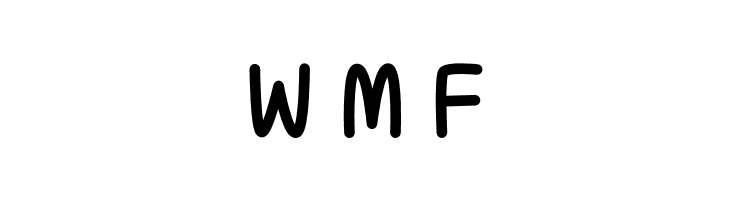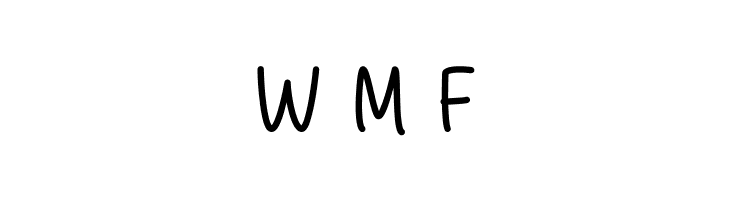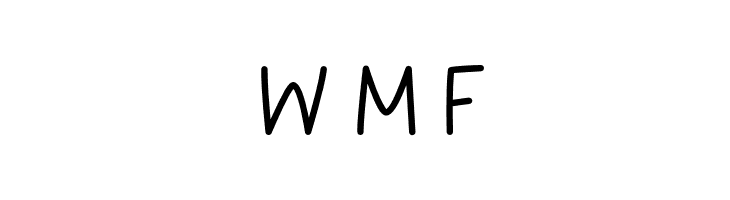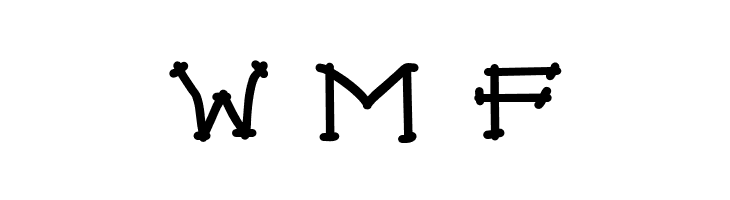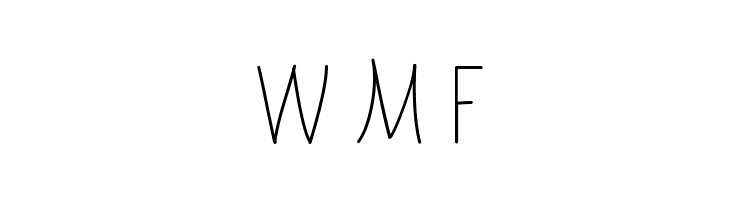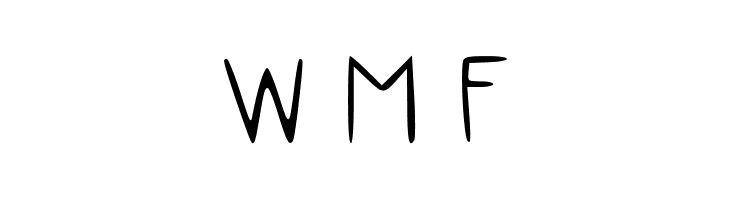
( Martha May Designs )
A playful, hand-drawn font with a whimsical and friendly appearance.
( Matchbook Press )
A whimsical, retro-style font with elongated, thin strokes and circular embellishments.
( MaximDude's Fonts - maximdude.deviantart.com )
A playful, informal handwritten font with uneven letterforms.
( Megami Studios - incstonedesign.com/ )
A hollow, decorative script-like font with bold outlines and artistic flair.
( Mia Hague Illustration - www.miahague.co.uk )
A playful, informal handwritten font with a dynamic and lively feel.
( Misti's Fonts - mistifonts.com/ )
A playful, handwritten font with smooth, rounded edges and a casual style.
( Misti's Fonts - mistifonts.com/ )
A playful, handwritten font with rounded edges and consistent stroke width.
( Misti's Fonts - mistifonts.com/ )
A playful, handwritten font with rounded edges and a casual style.
( Misti's Fonts - mistifonts.com/ )
A playful, handwritten font with smooth, rounded edges and a casual vibe.
( Misti's Fonts - mistifonts.com/ )
A casual, handwritten font with bold strokes and a playful style.
( Mr. Rosteck )
A playful, handwritten font with a casual and informal style.
( Nectar )
A playful, handwritten font with thin, dynamic strokes and a casual style.
( R25 font - www.facebook.com/aldhie.walton )
A playful, bandage-themed font with unique connecting elements and whimsical style.
( RamonaMagdolna )
A casual, handwritten font with fluid, slightly uneven strokes.
( Ruji C. - rujic.net )
A casual, hand-drawn font with a playful and informal style.
( Sabrina Schleiger - www.monkeyroodlesfonts.com )
A playful, handwritten font with tall, narrow letters and a casual vibe.
( Shara Weber - sharasfonts.com )
A light, handwritten-style font with an italic slant and consistent stroke thickness.